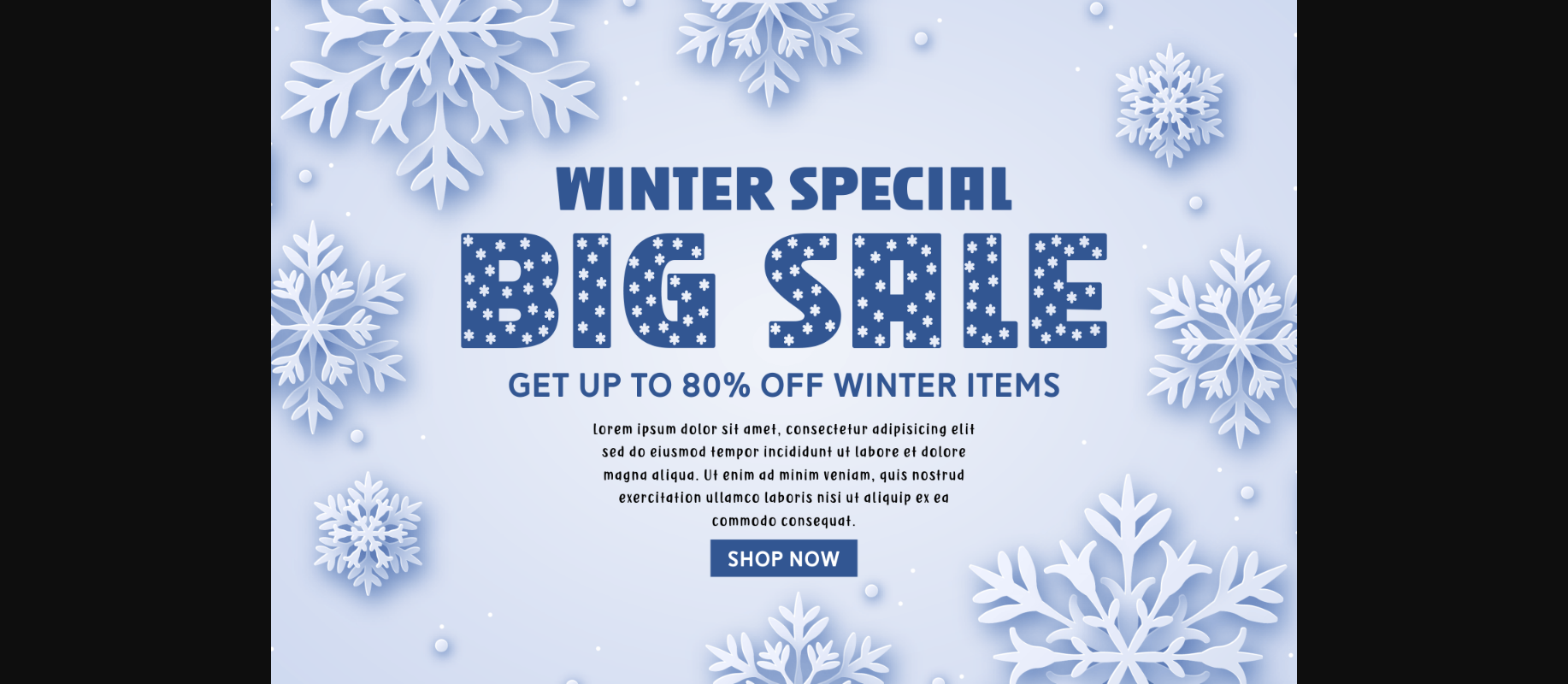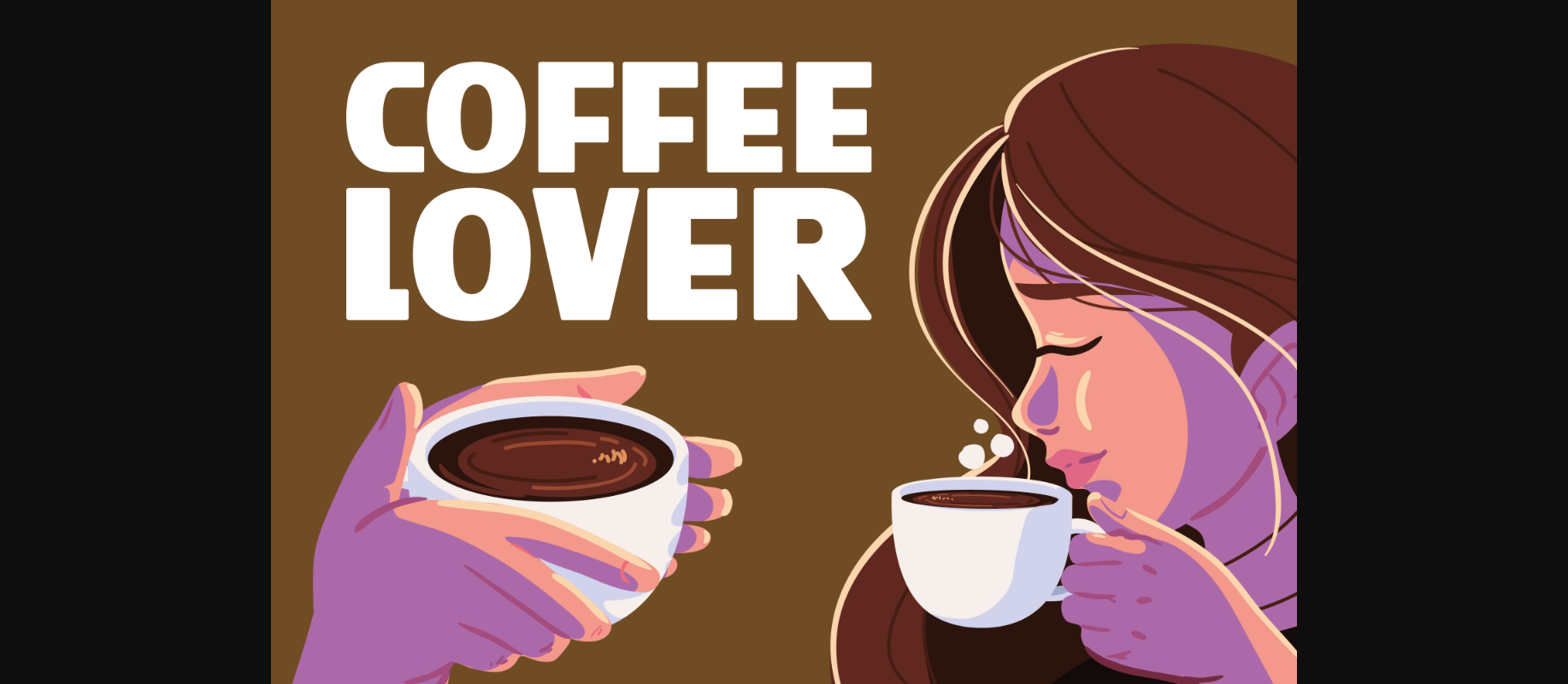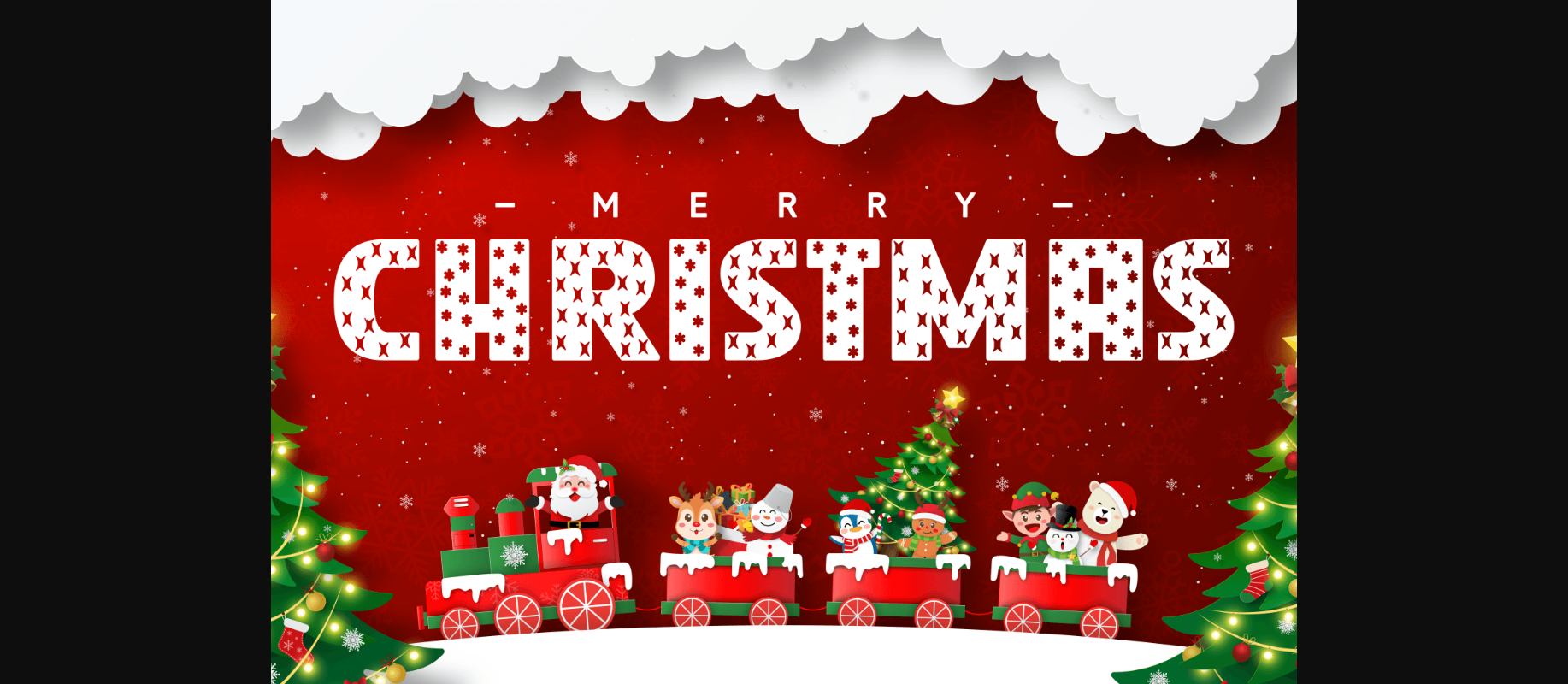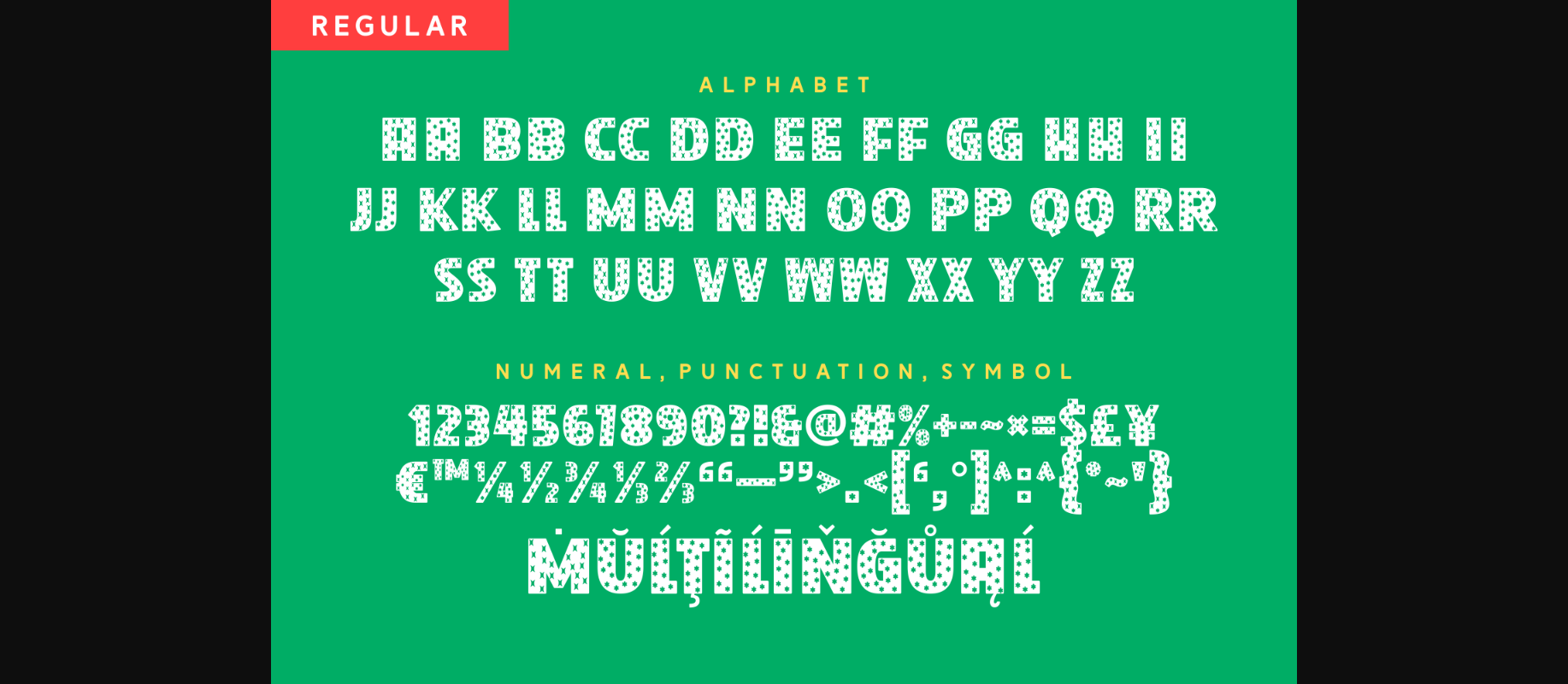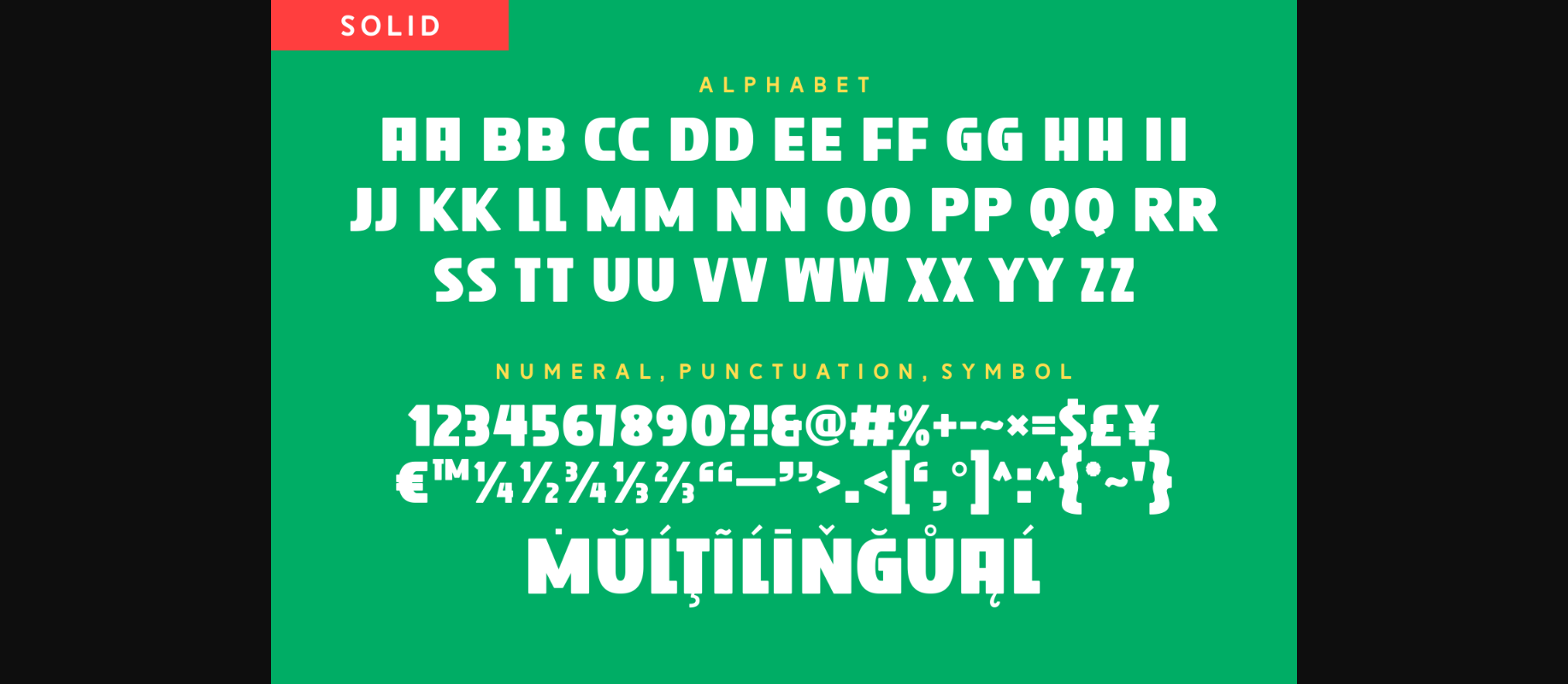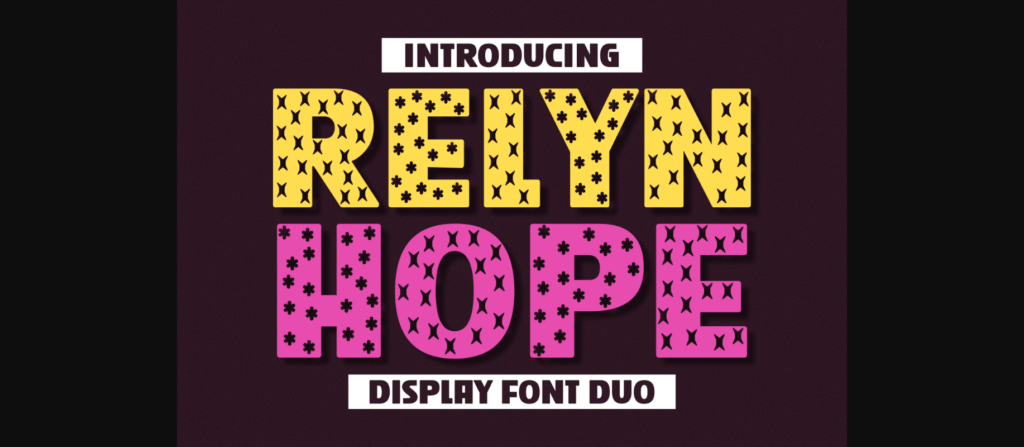
Relyn Hope Font
About Relyn Hope Font
Relyn Hope is a decorative and display duo font that can truly make your projects stand out! Bold and unique, this typeface is perfect for your most creative ideas!